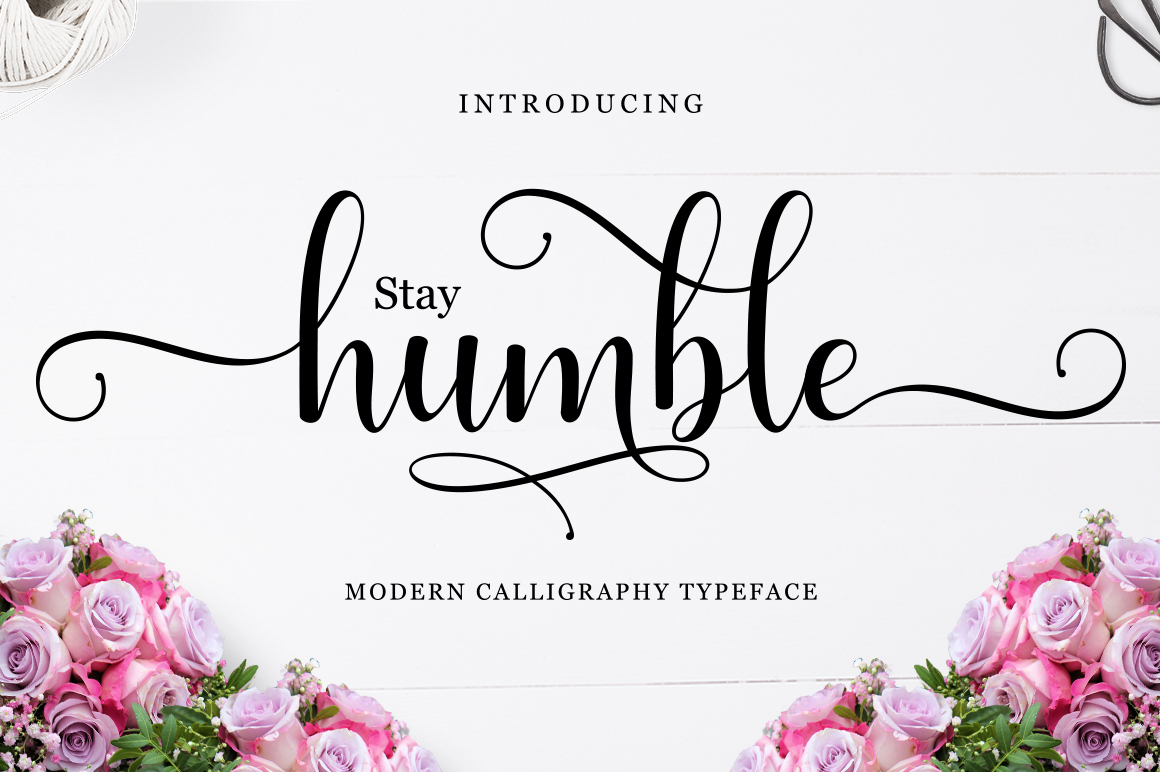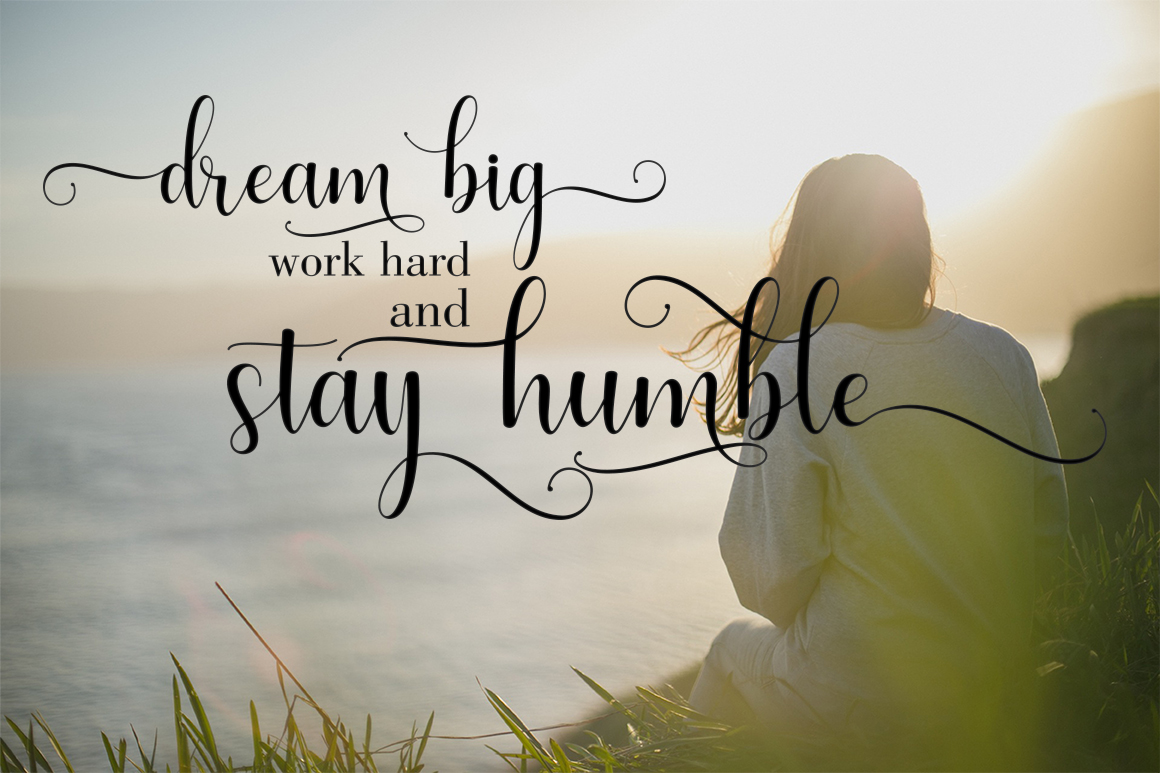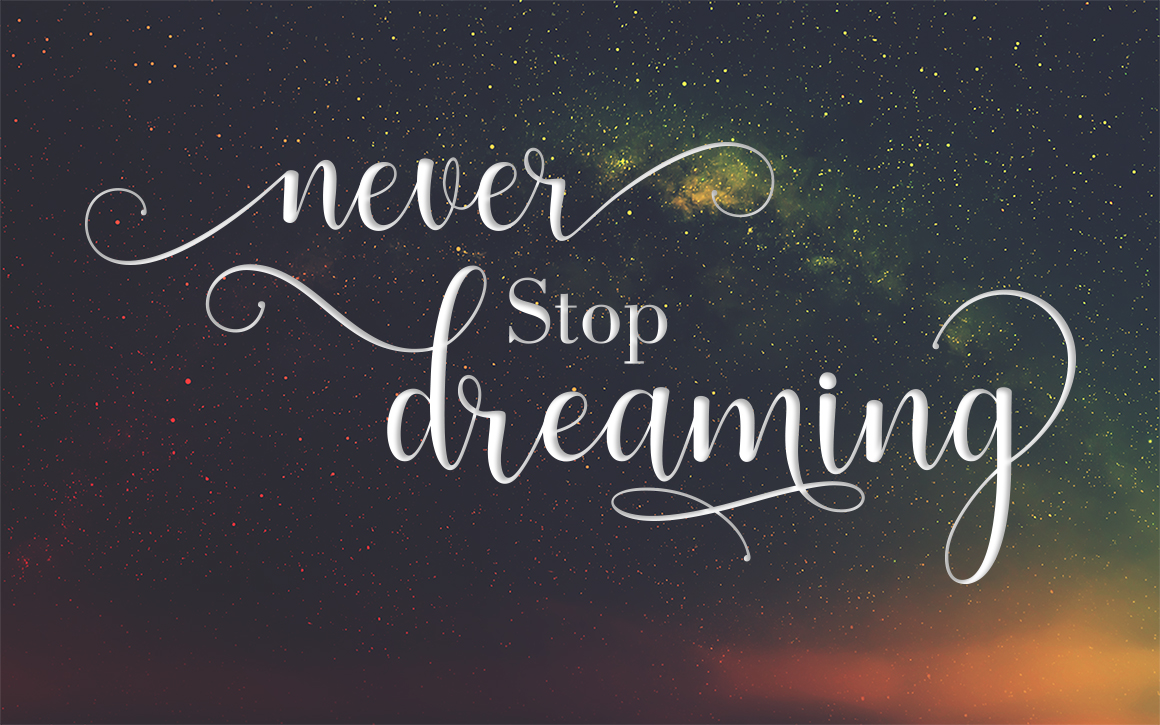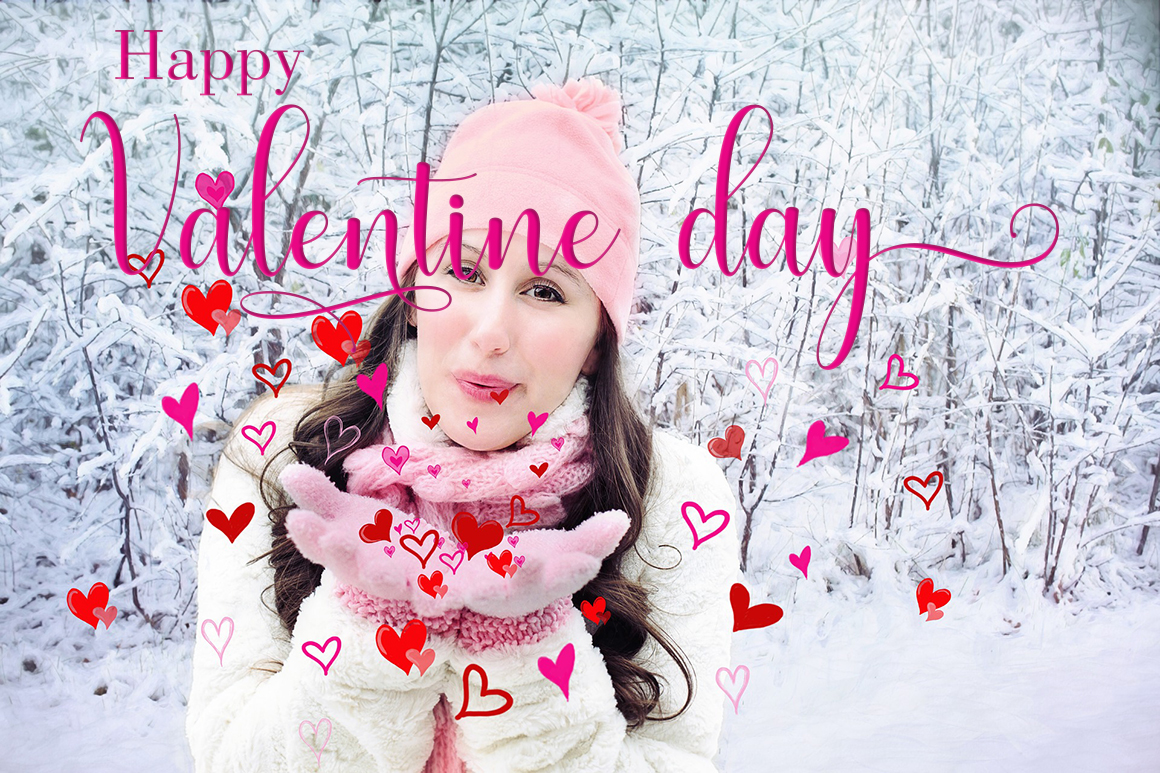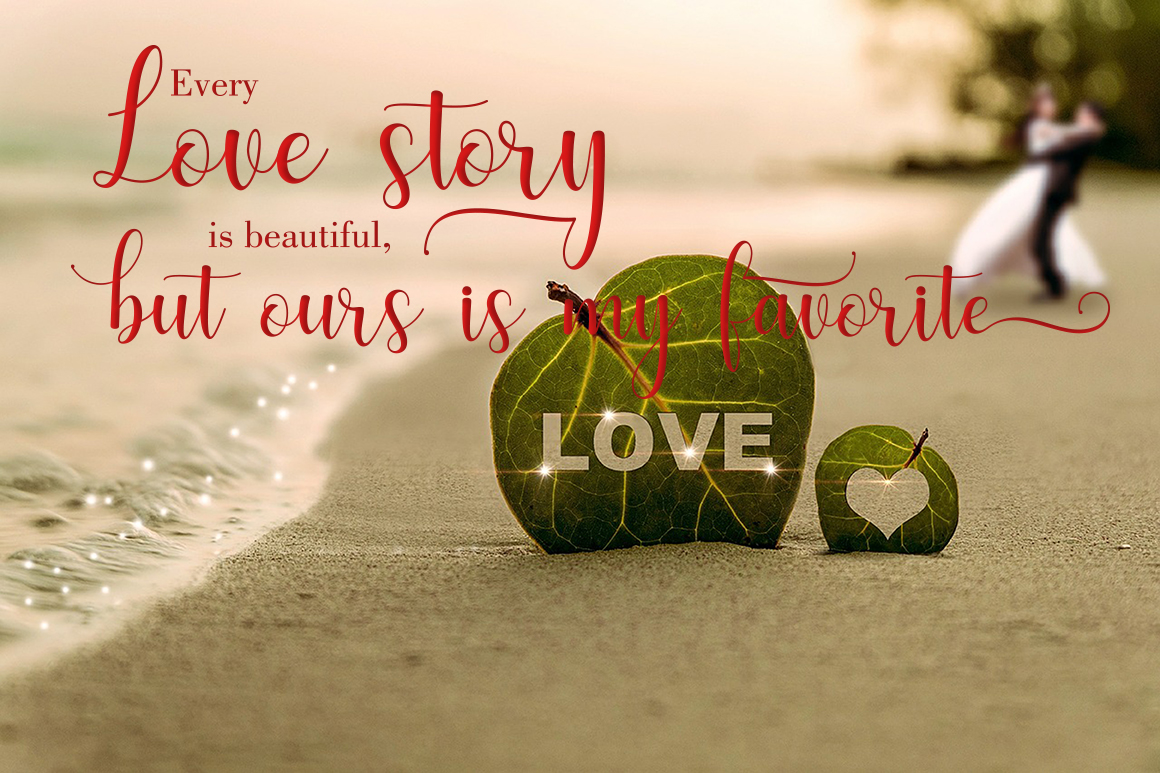
Humble Font
About Humble Font
Humble is a gorgeous and embellished font that comes in both script and sans serif styles for a wonderfully whimsical combination! This font duo is a great way to give your designs a romantic feel without compromising on modern style.